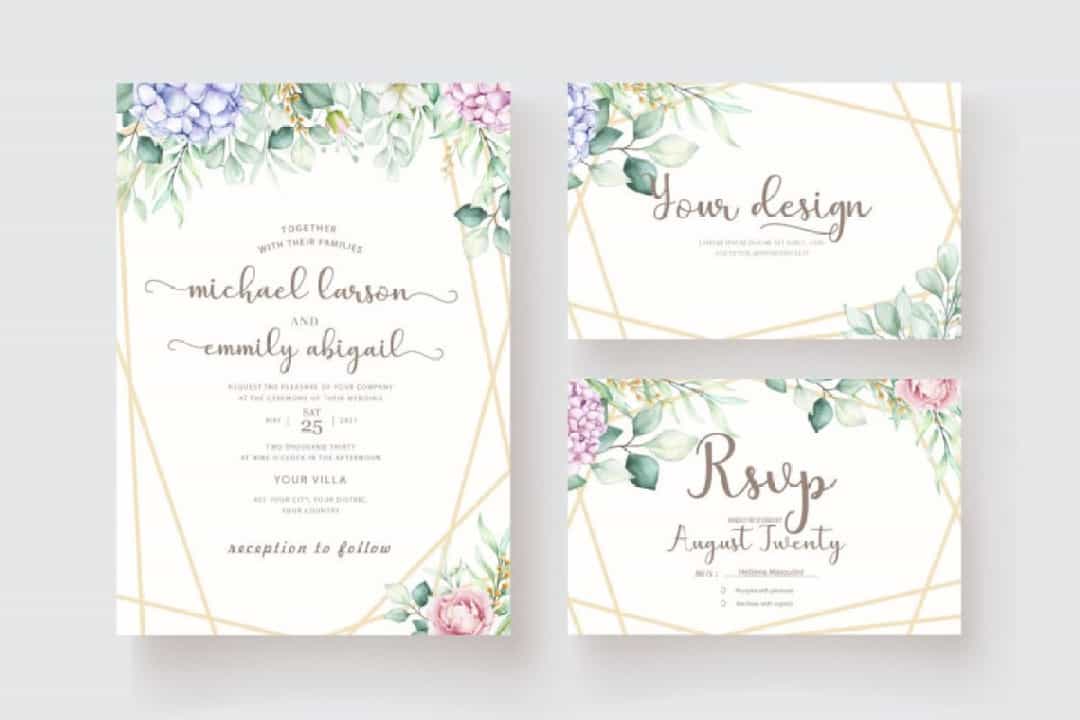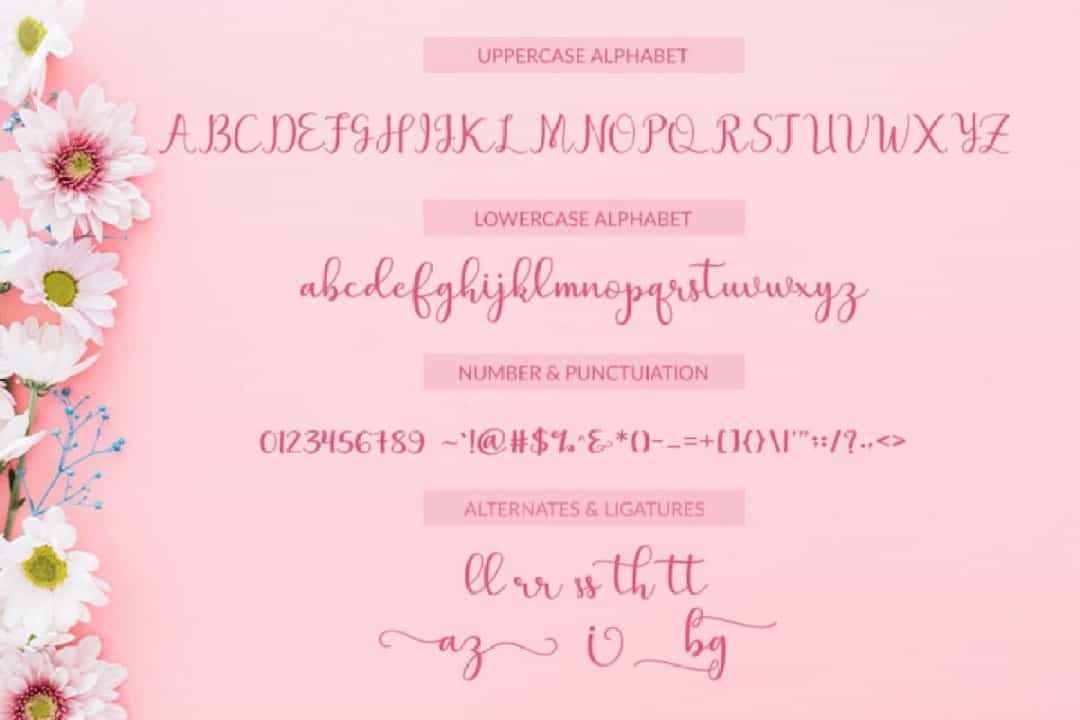
Marthina is a beautiful font that is a script font with handwritten calligraphy characteristics ideal for use in making invitations, greeting cards, logos, business cards, posters, quotes and so on.